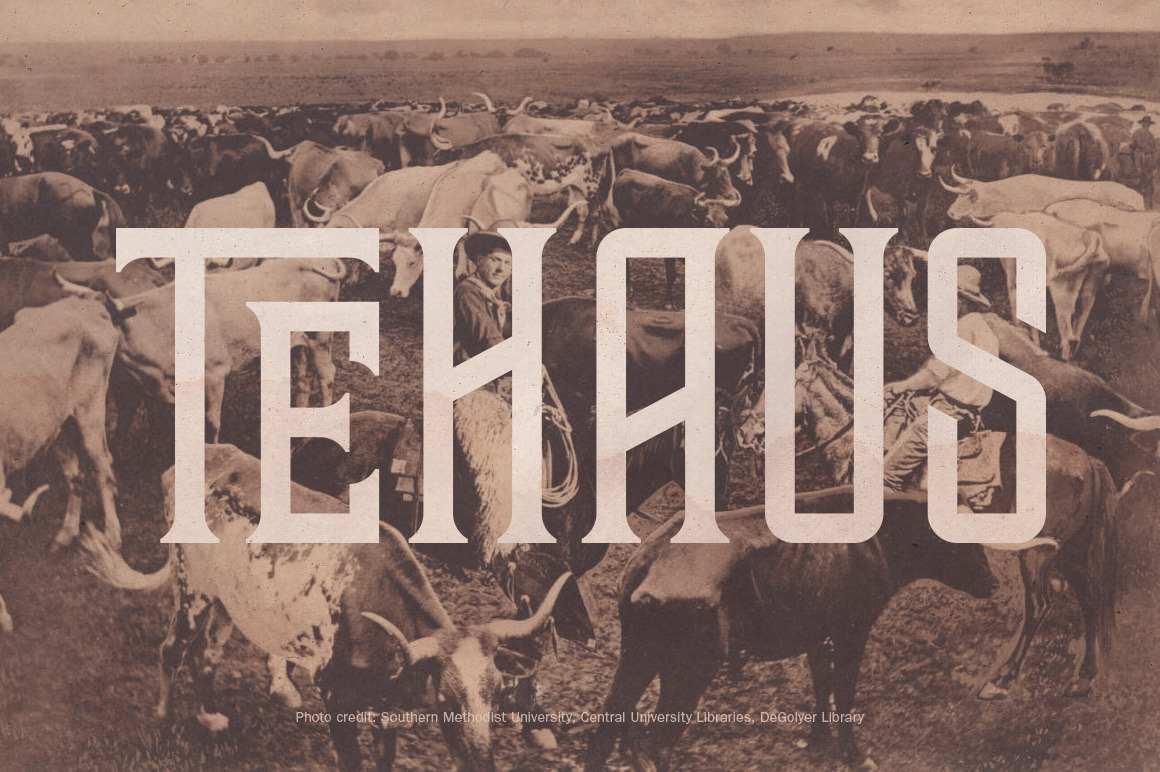
TEHAUS Typeface
Tall and lean, TEHAUS is a sturdy display face perfect for headings, logos, and cattle drives.
ORIGIN A few letters from an old American Type Founders specimen book provided the base for a logo concept that was never used. The rest of the characters were eventually fleshed out into the set above. It's built on a modular system, so modifying letters and eliminating empty space created by the letters "L" and "T" is a relatively simple process.
INCLUDES The TEHAUS font (.otf) includes uppercase and small caps characters, standard punctuation, a few alternate characters, and unique "L" and "T" letter pairs that can be accessed through the glyphs panel in Illustrator.